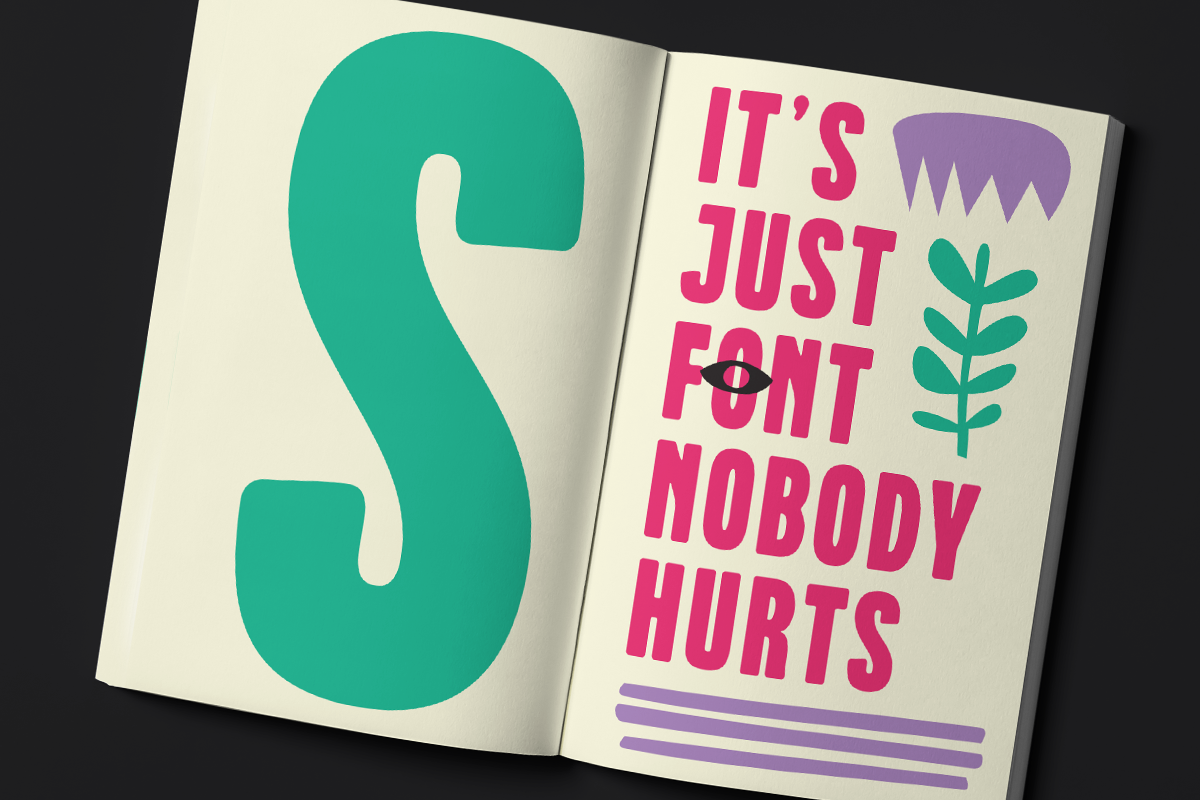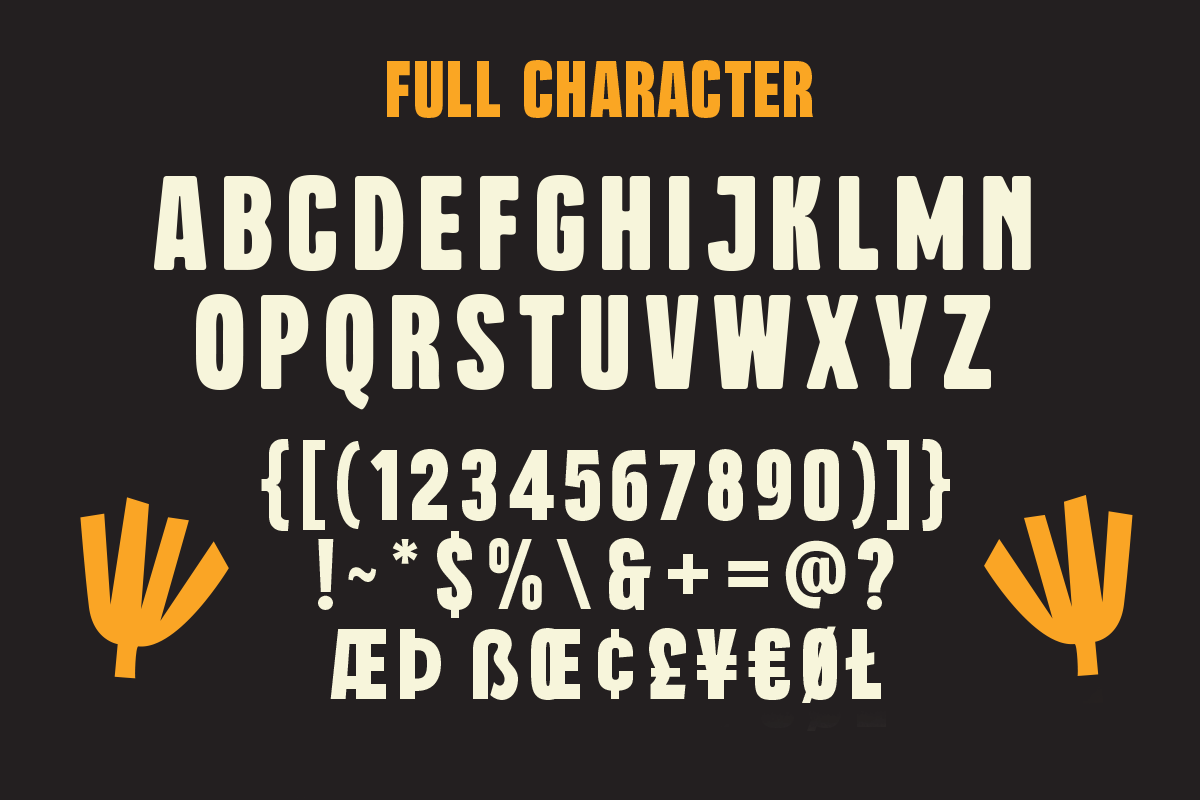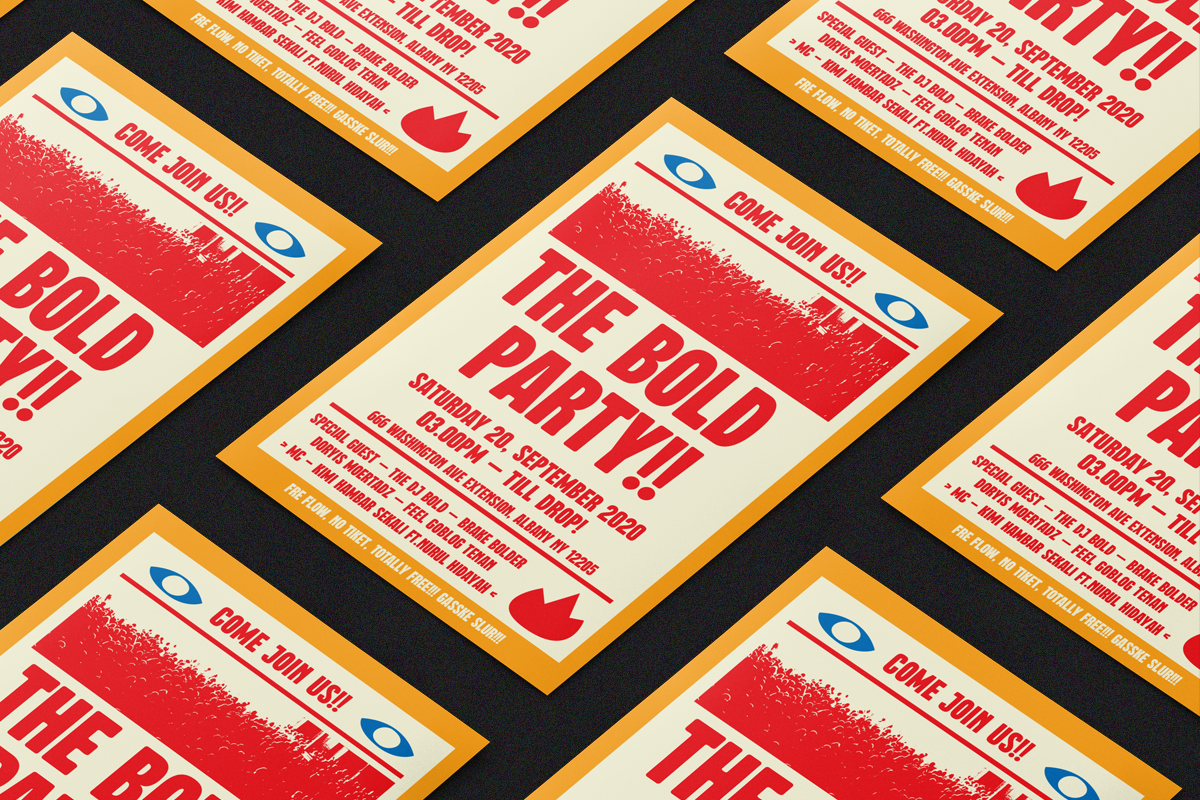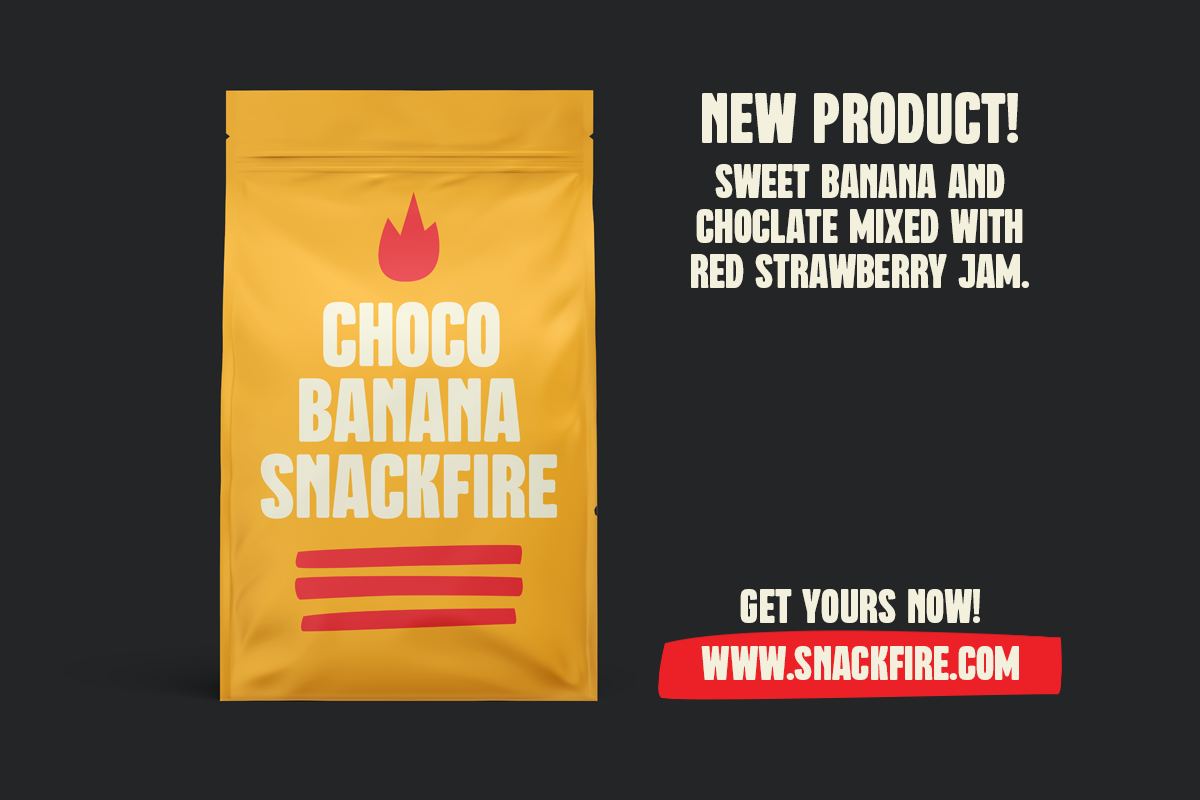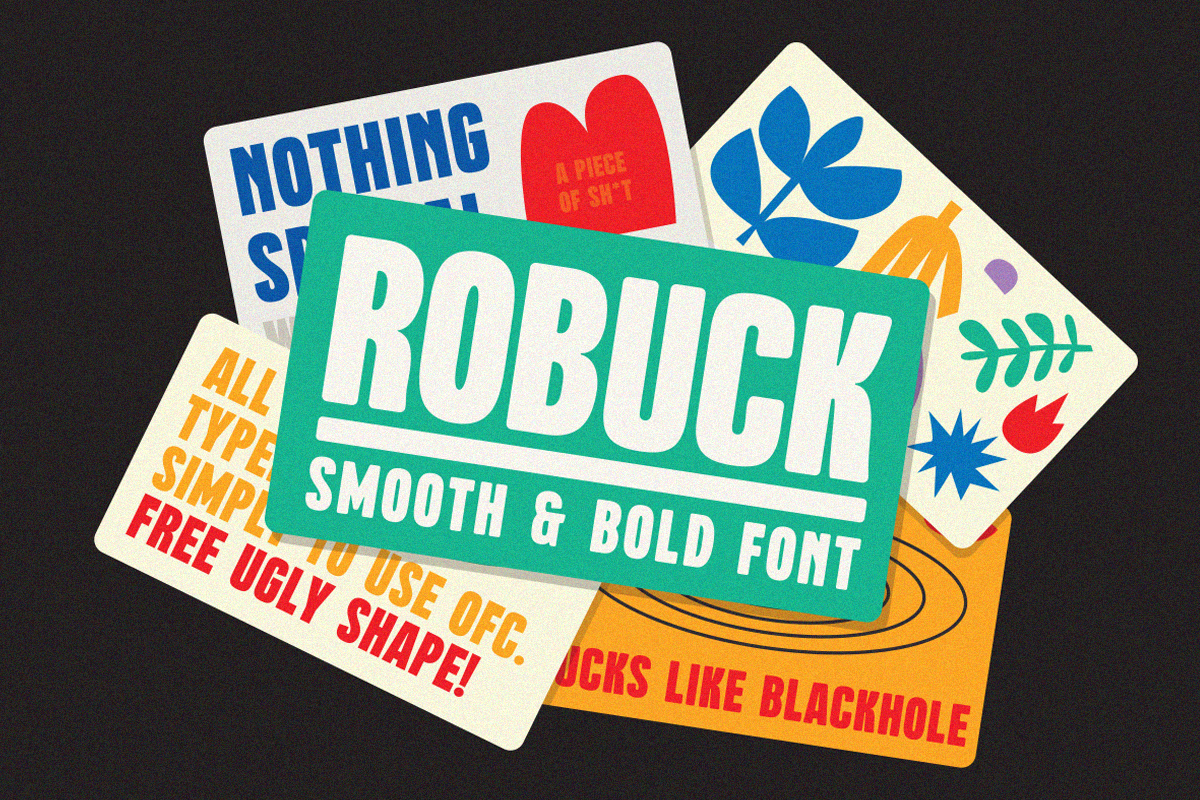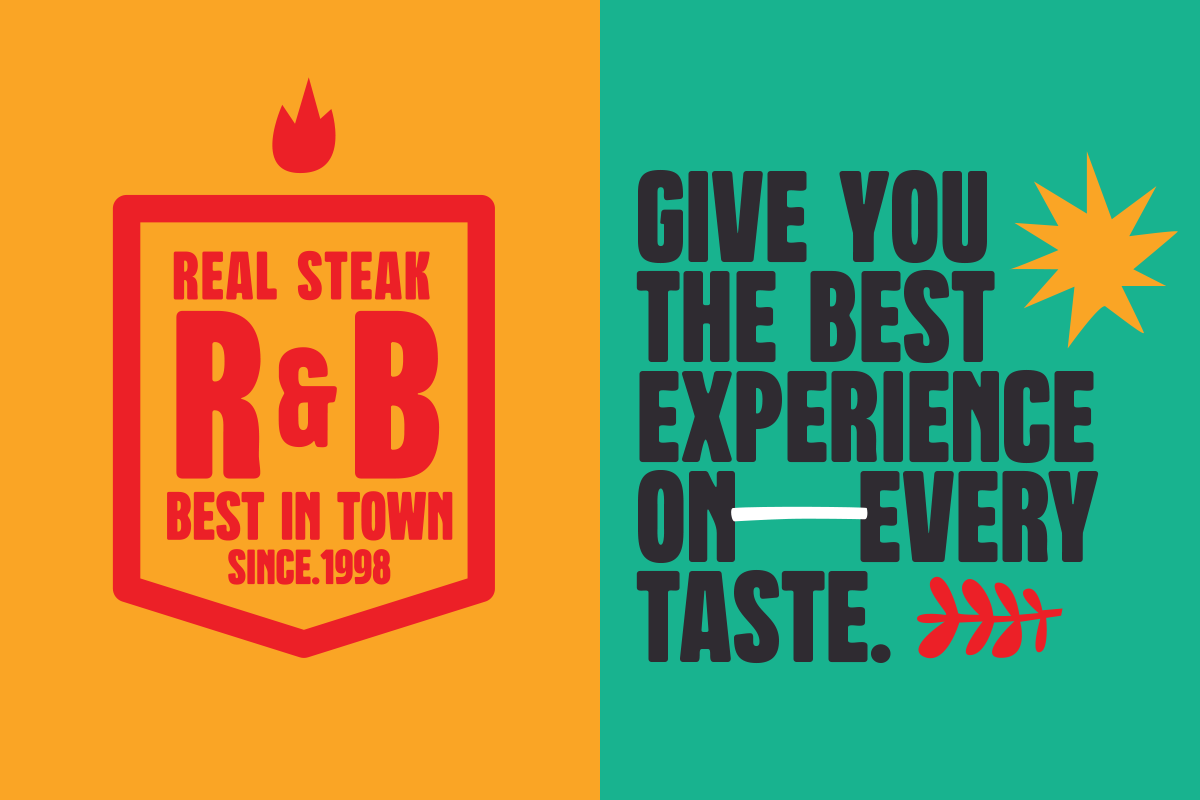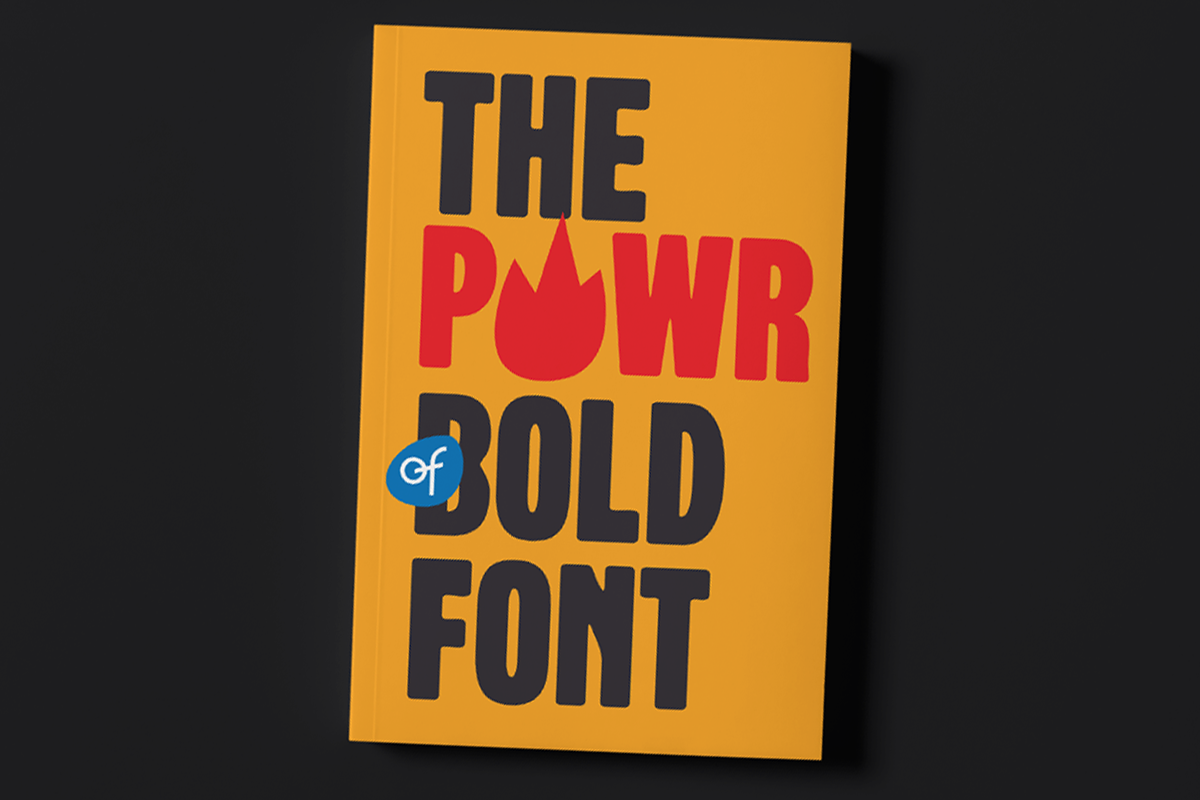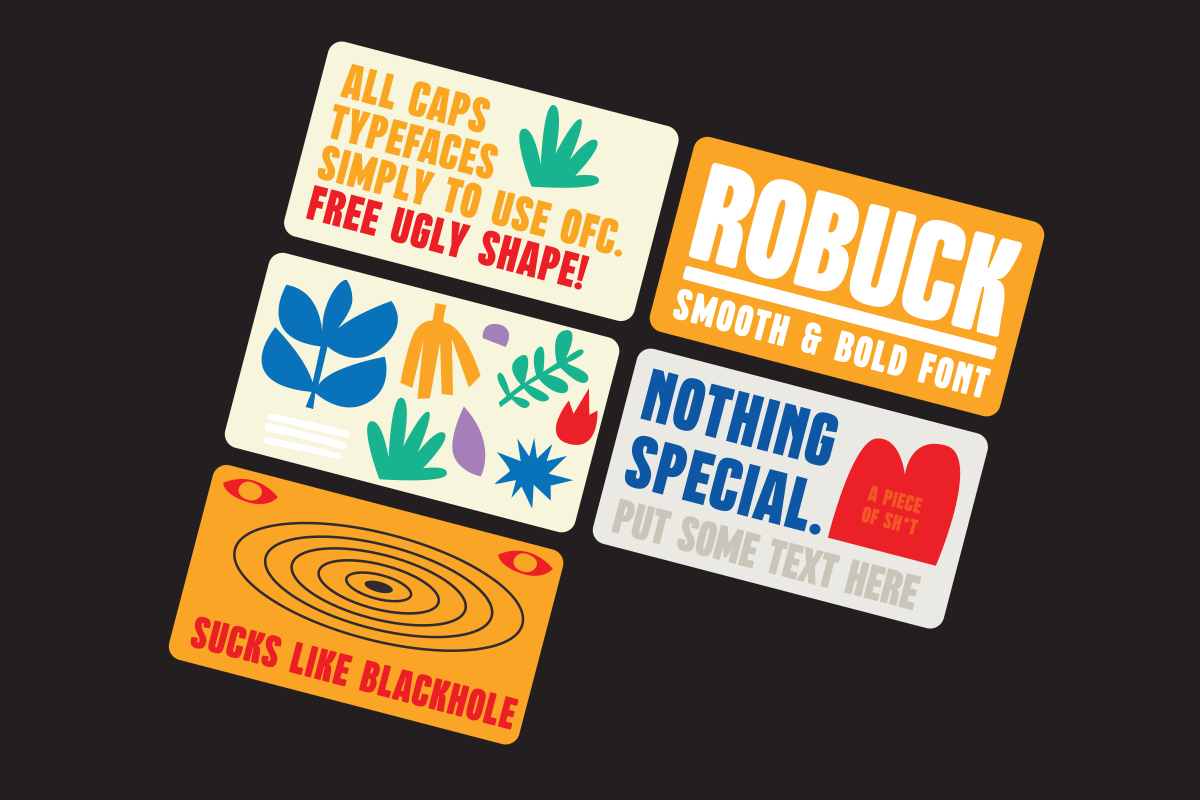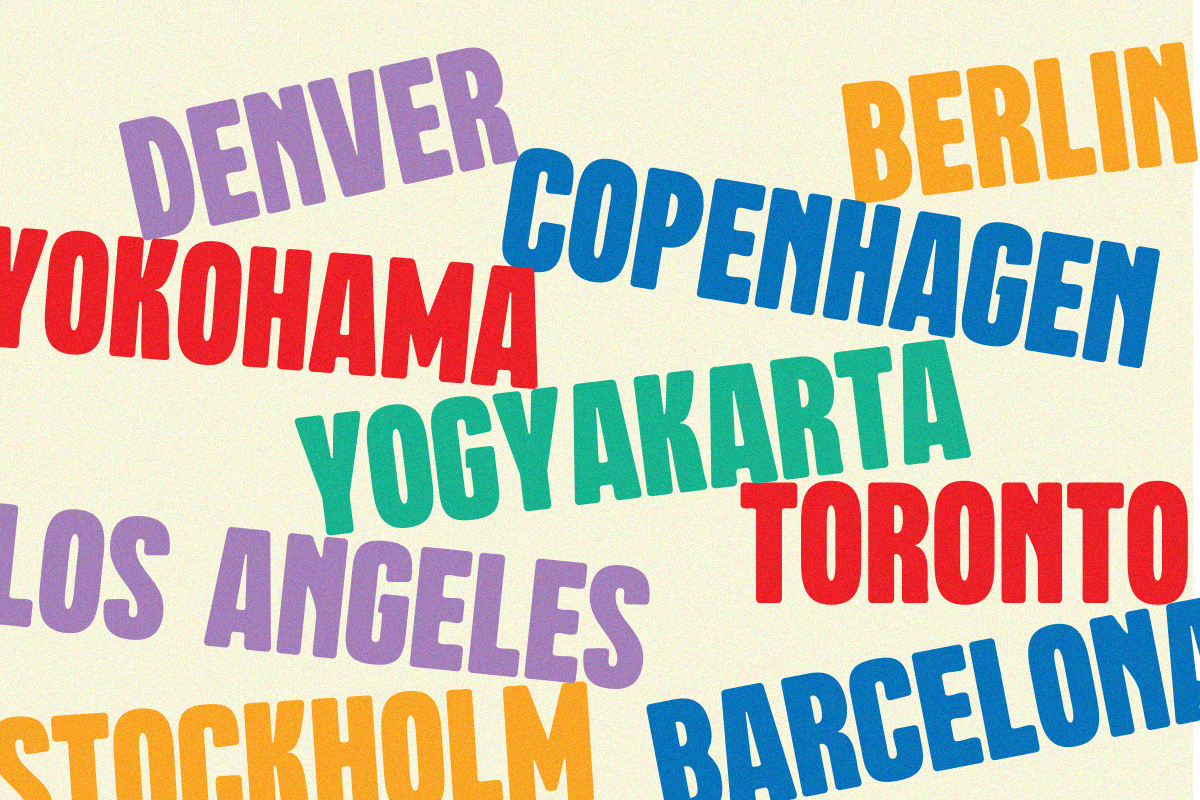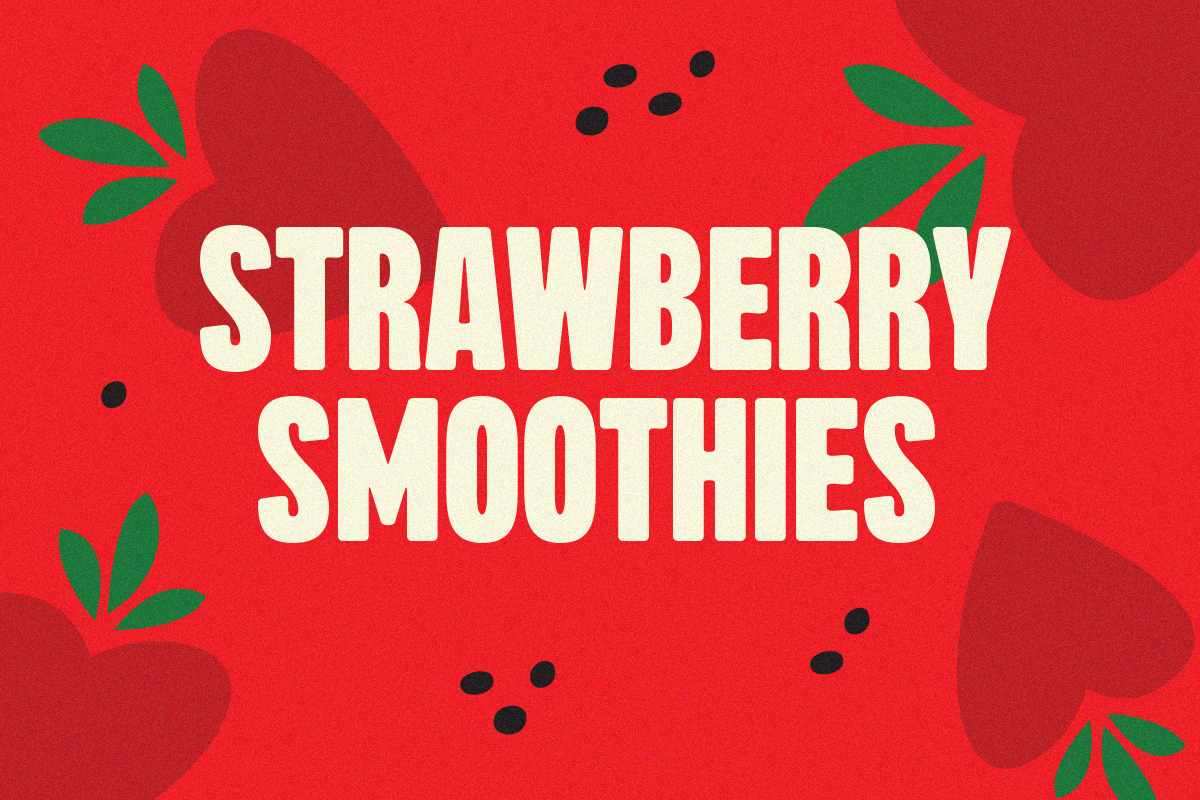
Robuck Display Font + EXTRAS!
ROBUCK THE BOLD FONT DISPLAY
ROBUCK is a family Sans Serif font designed with carefully handcrafted. Also suitable for branding, T-shirt, Wedding Invitation, Classic Design, Logotype, and any project. Comes with a tons of ligature make your life more than comofortable, easier to design and adjust frustating space in font.
- Robuck Regular
- Robuck Rounded